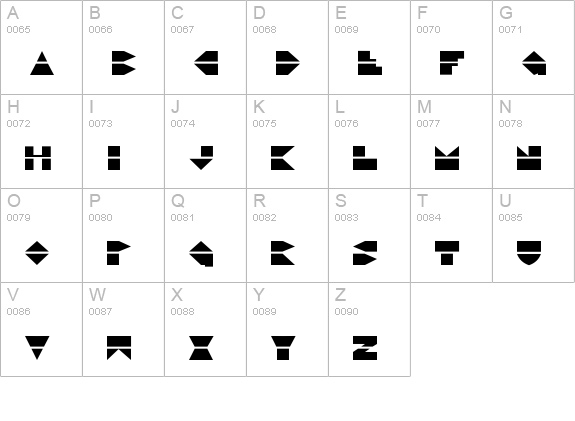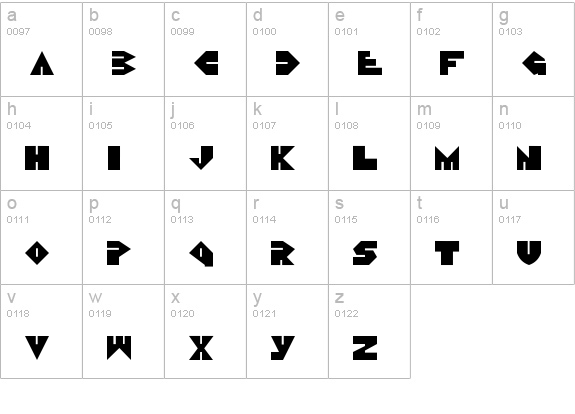
Disco Dork font is a vibrant and fun display typeface that brings a retro disco feel to any project. With its playful and energetic design, this font is perfect for adding a touch of nostalgia and excitement to your designs. Whether you're creating party invitations, posters, or branding materials, Disco Dork font will surely make your text stand out. Best of all, Disco Dork font is completely free to download at FontsMarket.com. So, bring some disco vibes to your creations today with this fabulous font!